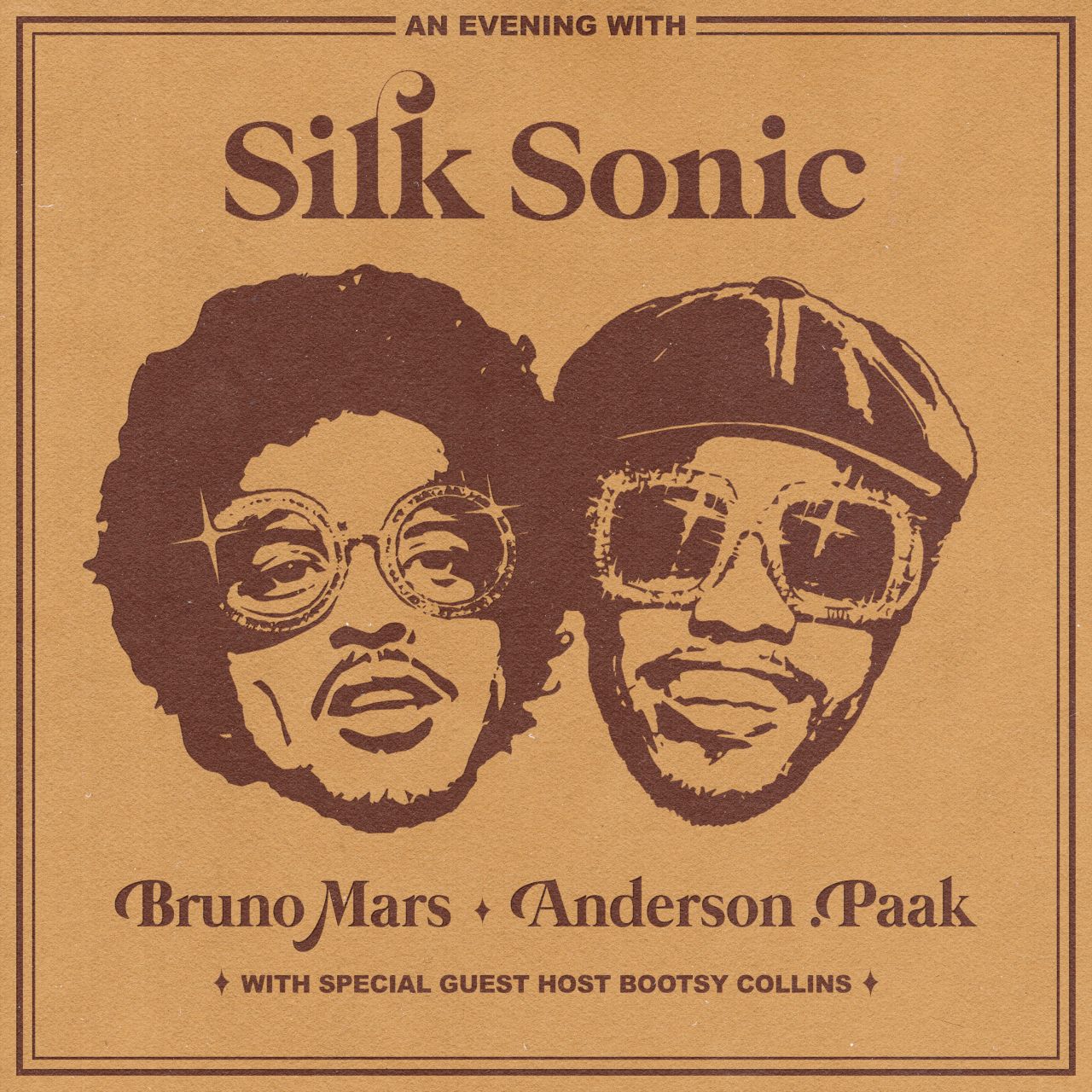
An Evening with Silk Sonic Font
Fonts in UseAn Evening with Silk Sonic is the debut album by the duo consisting of Bruno Mars and Anderson Paak, released in November 2021. The album features 9 tracks of soulful, retro-inspired R&B and funk, paying homage to the sounds of the 70s and 80s.
Glamour Absolute, a font by Nicky Laatz, and a sans-serif font that resembles Arial Black were used for the album title on the cover artwork, while a free font by Scott Simpson's Mermaid Swash Caps was used for the duo's names.